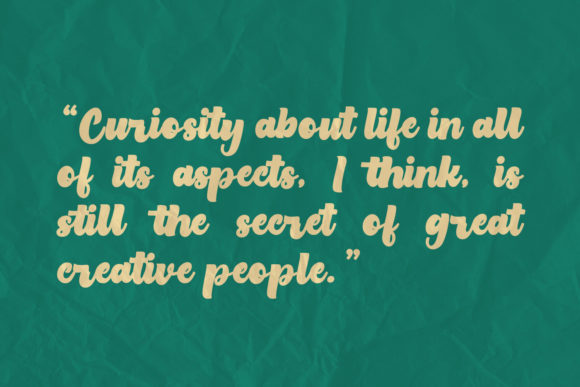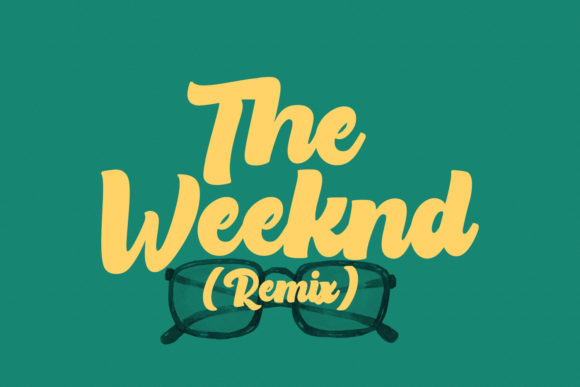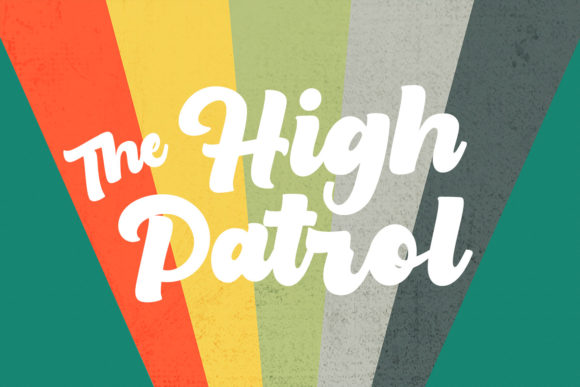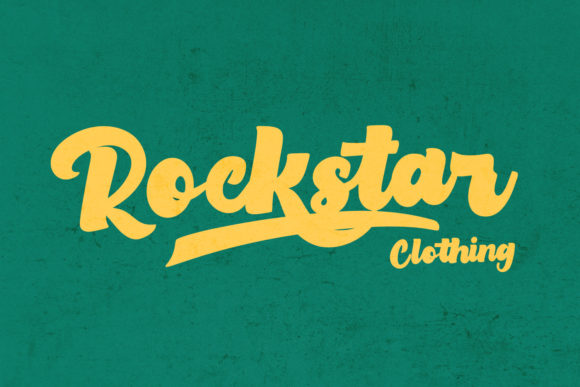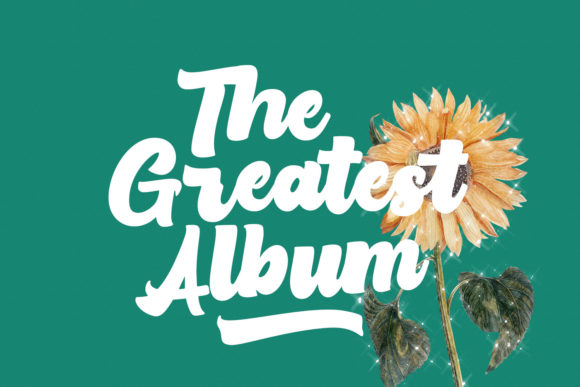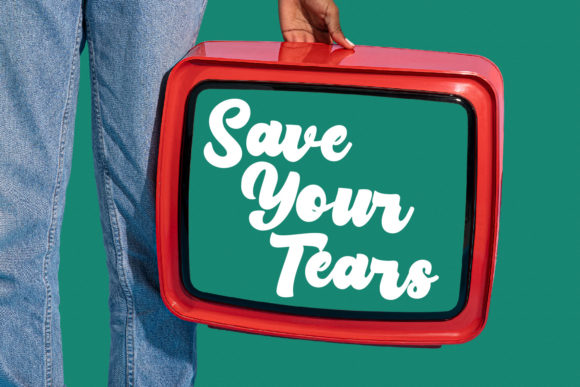
Introduction to Milkista Script Font Font
Fonts play a crucial role in design, and the Milkista Script Font font is a typeface that brings both character and versatility to any project. Whether you’re working on a branding project, a website, or a print design, the Milkista Script Font font offers a unique style that can elevate your work.
Milkista Script is a thick lettered, chic and trendy handwritten font.
No matter the topic, this font will be an incredible asset to your fontsβ library, as it has the potential to elevate any creation .
Key Features of Milkista Script Font Font
Why Choose Milkista Script Font Font?
The Milkista Script Font font is more than just a typeface β it’s a design tool that helps you communicate your message with style and clarity. Its unique character set and versatile design make it suitable for a wide range of applications, from elegant invitations to bold headlines.
With its carefully crafted letterforms and balanced proportions, the Milkista Script Font font ensures readability and visual appeal across all mediums.
What makes Milkista Script Font font special?
The Milkista Script Font font stands out with its unique design, exceptional readability, and versatility across various design applications.